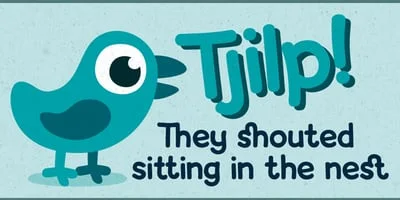
Very Loose Font
Very Loose Font is perfect for creative greeting cards, handwritten invitations, casual branding projects, artistic portfolios, bohemian wedding stationery, craft business logos, social media graphics, children's book illustrations, organic product packaging, and relaxed restaurant menus. This free-spirited typeface brings authentic handcrafted charm to any design project seeking natural, approachable aesthetics.
Very Loose Font is exciting because it captures the spontaneous beauty of natural handwriting with its flowing, unrestrained letterforms. The font's organic irregularities and relaxed spacing create an intimate, personal connection with readers, making it perfect for brands that want to communicate authenticity, creativity, and human warmth in their visual communications.
Very Loose Font family includes multiple weights and styles: Regular, Bold, Light, Italic, Condensed, Script, Brush, Marker, and Handwritten variants. Each style preserves the distinctive casual character while offering designers flexibility for creating layered, expressive typography that feels genuinely hand-crafted and personally meaningful.
Whether you're designing for artisan brands, creative agencies, or personal projects, Very Loose Font delivers the relaxed authenticity that resonates with audiences seeking genuine human connection. This charming typeface combines artistic expression with readable functionality, making it invaluable for designers who want to add personality and warmth to their work without sacrificing legibility or professional appeal.